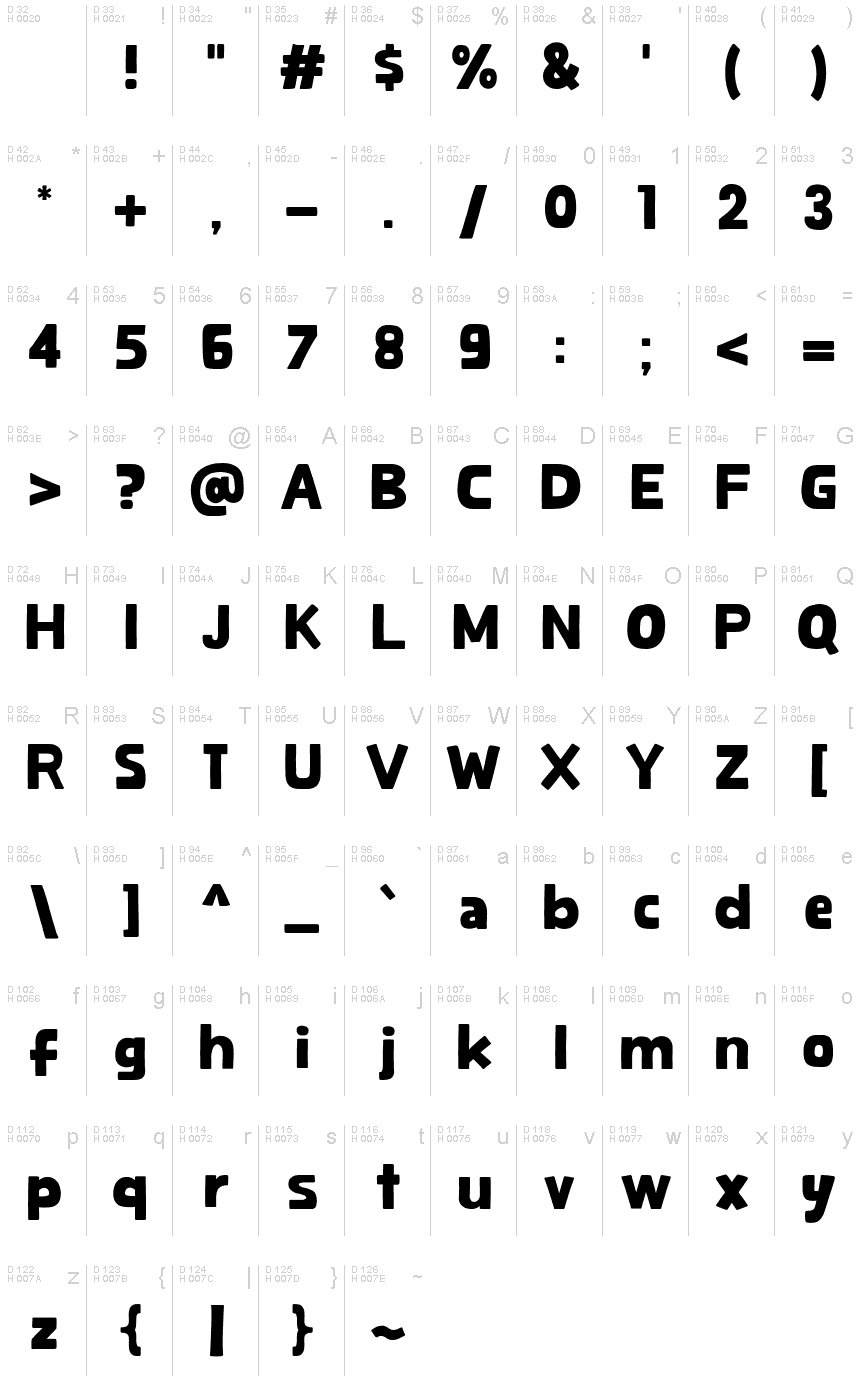
Spicy Shrimp
Spicy Shrimp, the bold and playful display font by Khurasan, is here to add a touch of whimsy to your projects.
With its cartoon-inspired style, this font is perfect for children's books, playful logos, and eye-catching signage. Its bold weight ensures that your message stands out loud and clear. Whether you're designing a vibrant poster or creating a captivating website header, Spicy Shrimp will bring a delightful charm to any project.
Let your creativity run wild with this lively and dynamic typeface!